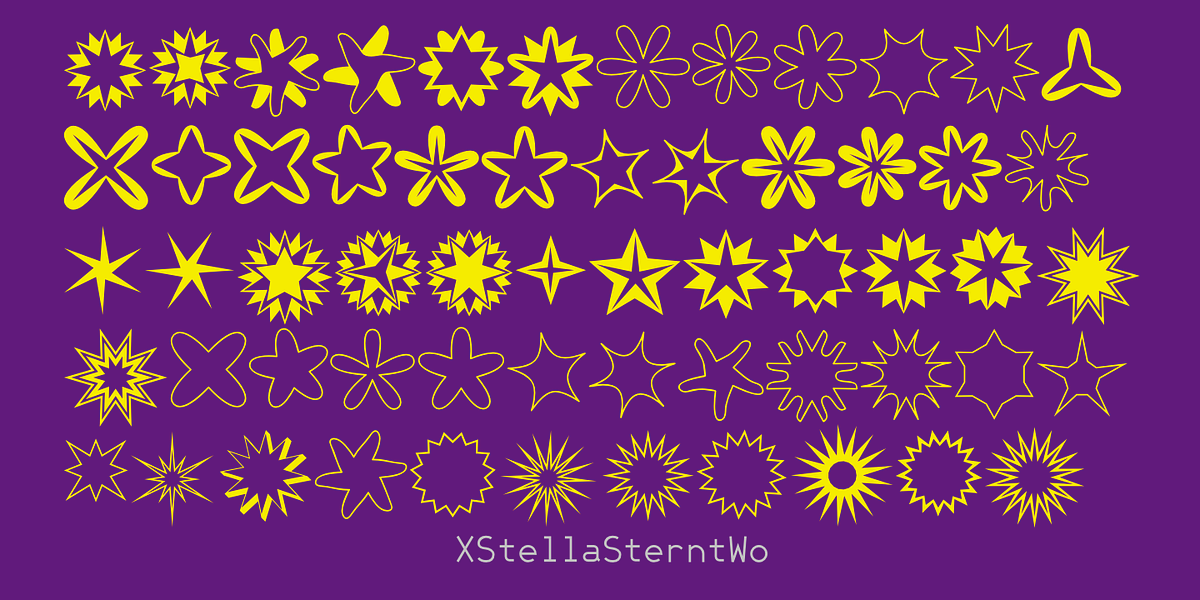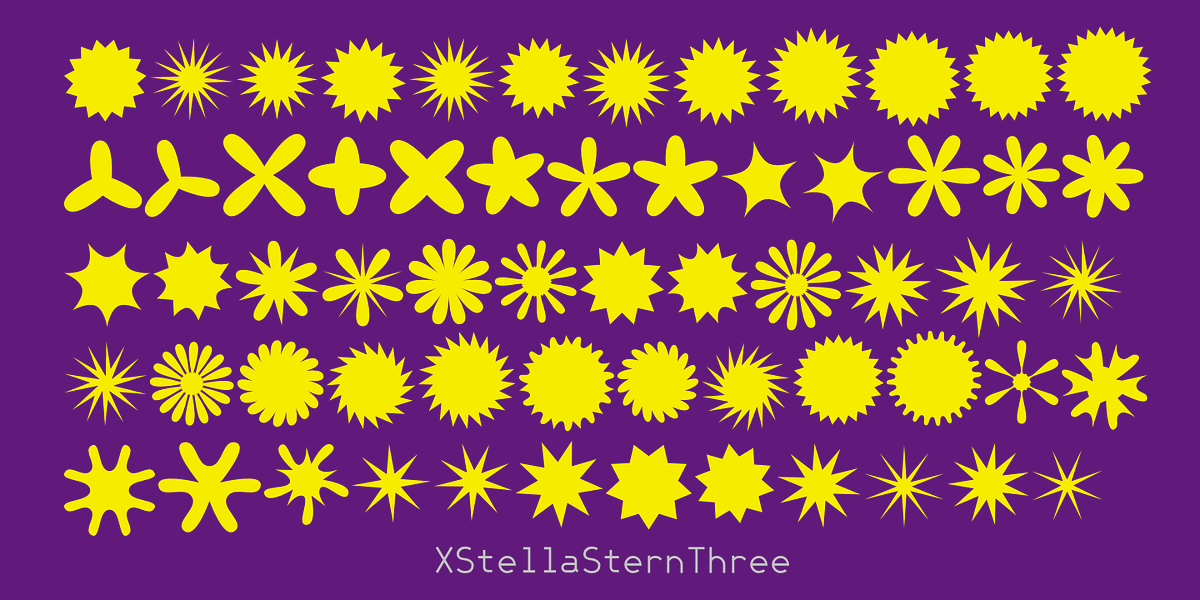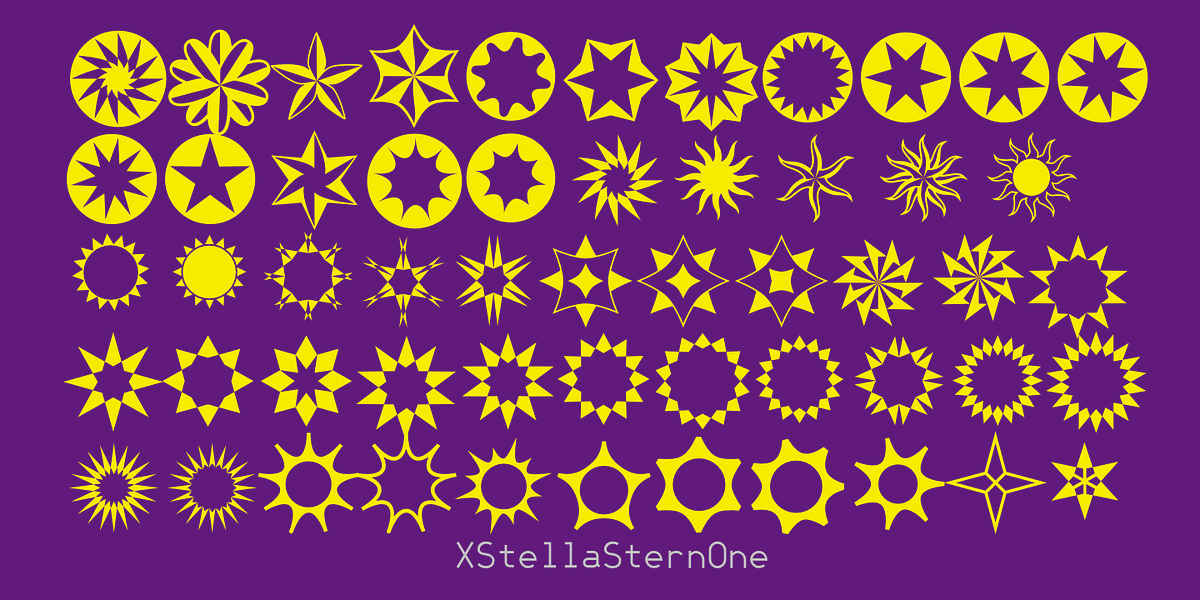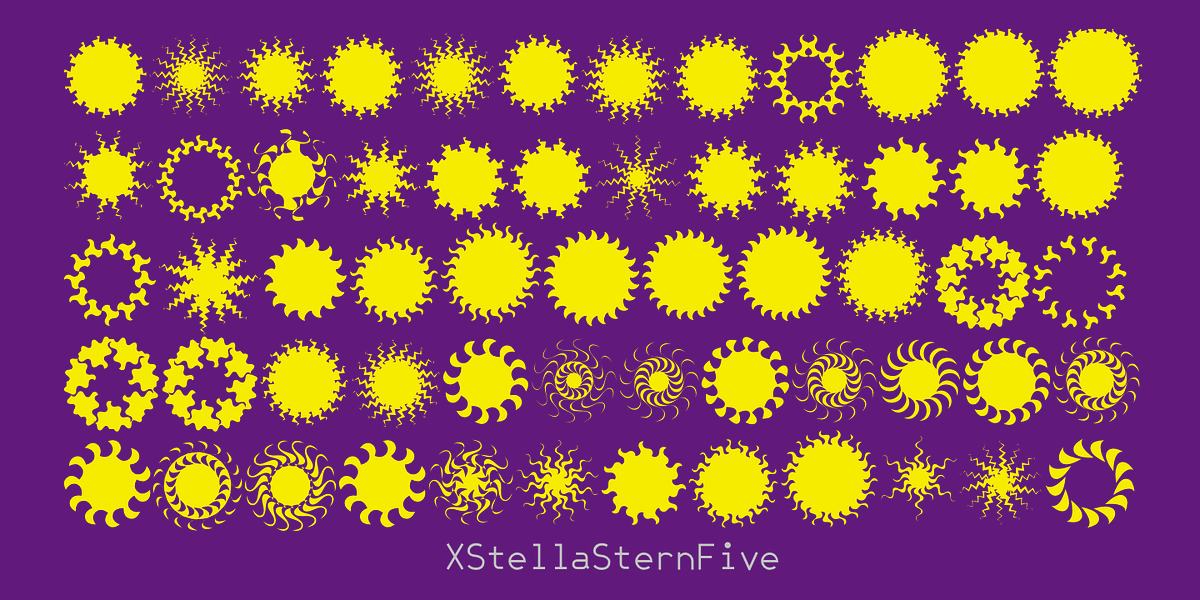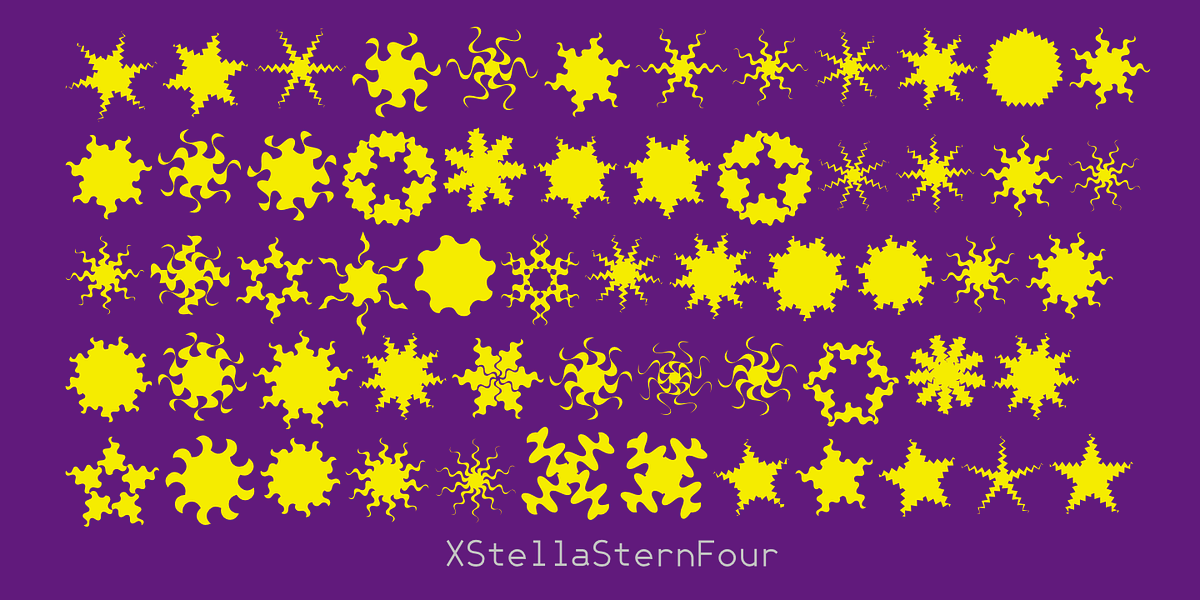
XStellaStern
The XStellaStern font group offers five distinct fonts featuring geometric star designs and star-like shapes. These fonts are classified as dingbats, specifically dingbat ornaments, making them suitable for adding decorative elements to graphics and illustrations.